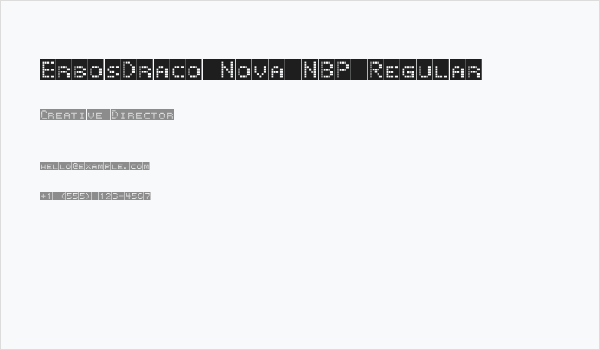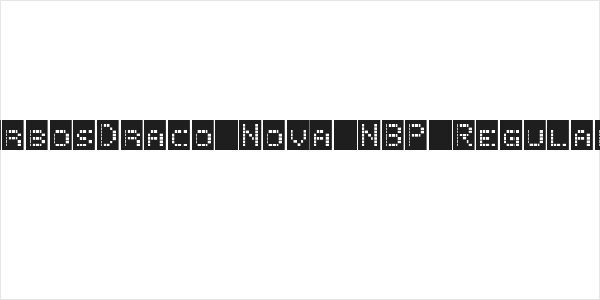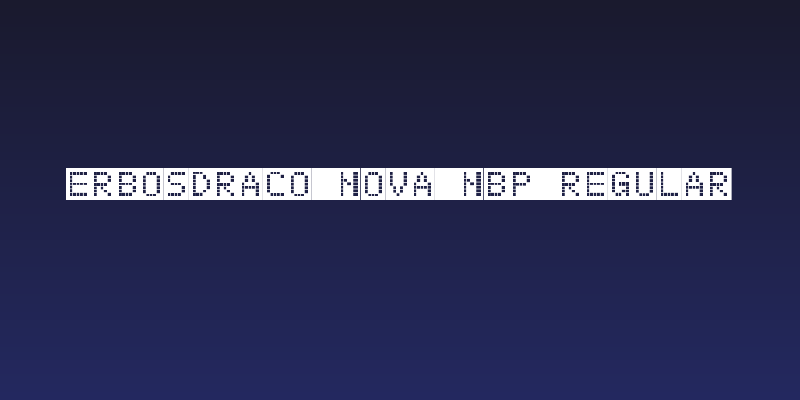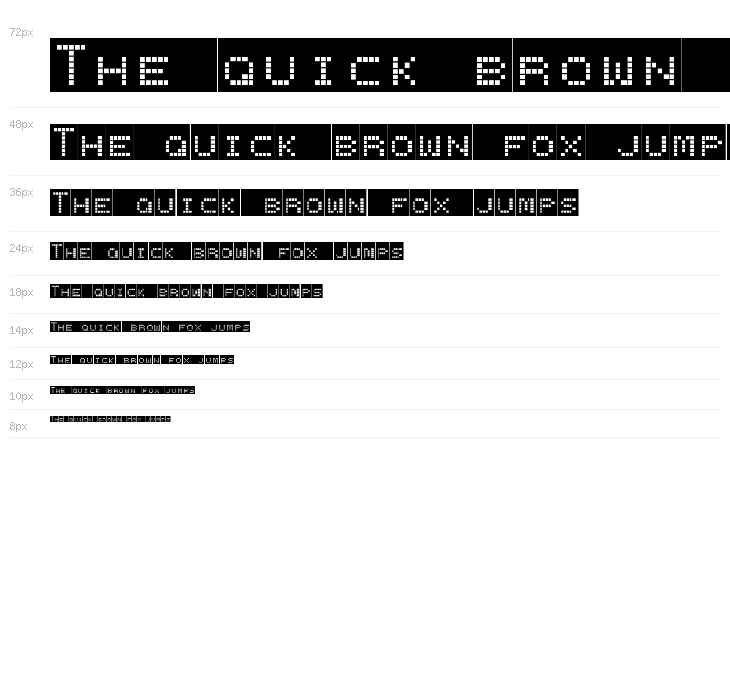
ErbosDraco Nova NBP Regular Font
ErbosDraco Nova NBP Regular Description
This font features a unique dot matrix style, reminiscent of digital displays and retro technology. Each character is constructed from a grid of small, evenly spaced dots, creating a pixelated effect that is both modern and nostalgic. The uppercase and lowercase letters maintain a consistent height and width, ensuring uniformity across the text. Numbers and special characters follow the same design principle, integrating seamlessly with the alphabet. The font's geometric precision and clean lines make it ideal for projects that require a futuristic or tech-inspired aesthetic. Its distinct appearance captures attention, making it suitable for headlines, digital interfaces, and creative designs that aim to evoke a sense of innovation and nostalgia.
| Use Case | Headlines, Logos, Digital displays |
| Proposed Projects | Ideal for digital interfaces, tech-themed designs, retro gaming projects, and futuristic branding. |